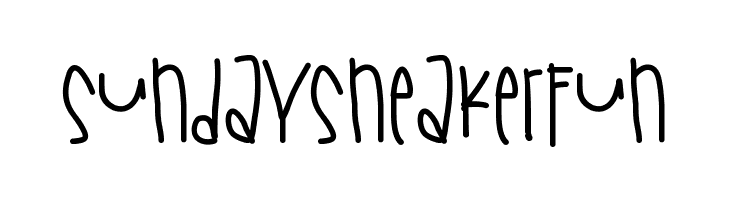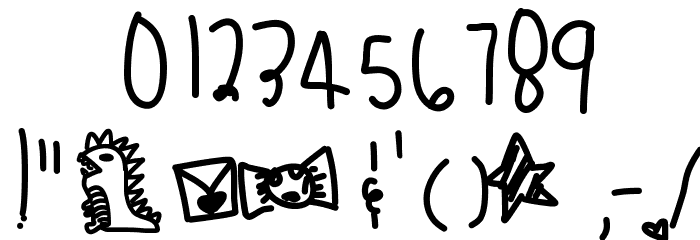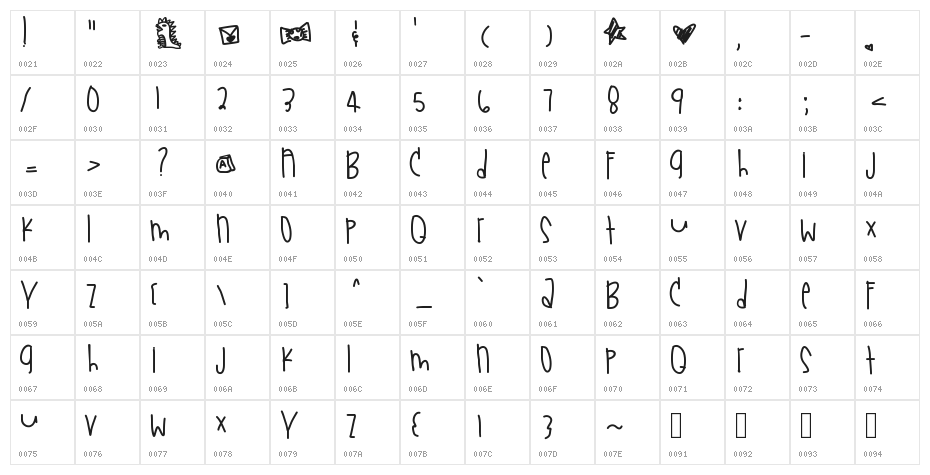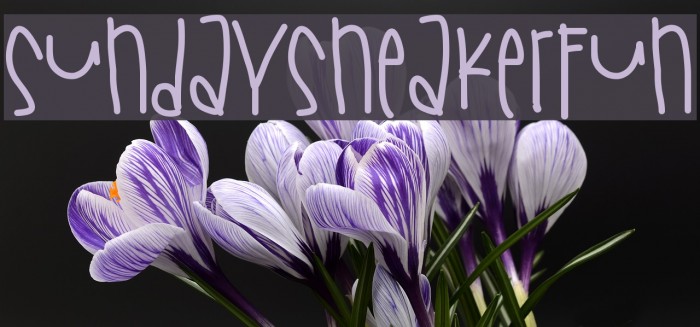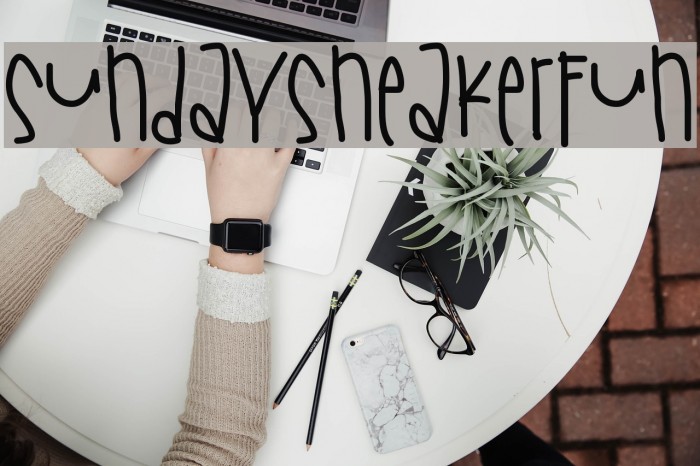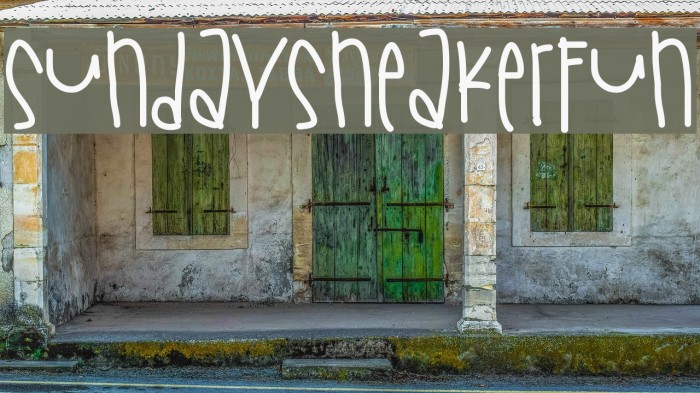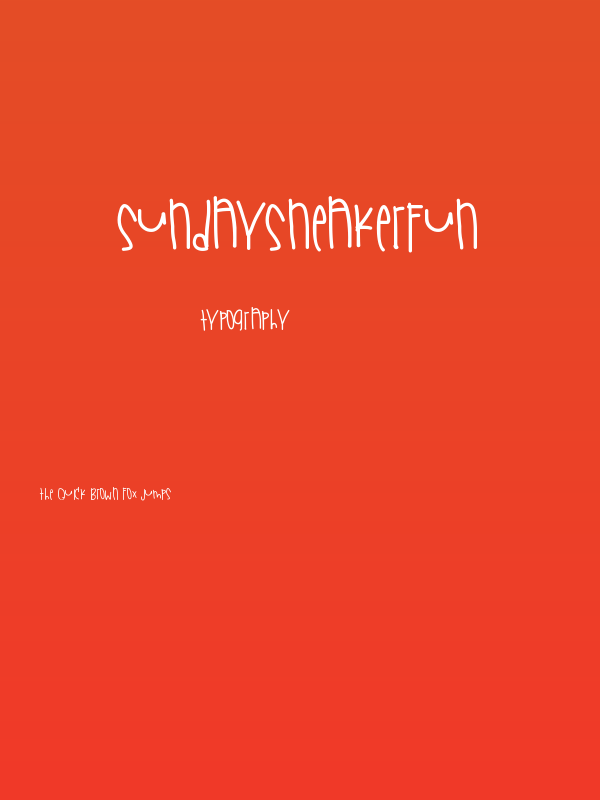
SundaySneakerFun Font
SundaySneakerFun Description
This playful and whimsical font features a handwritten style with a casual, informal appearance. The letters are tall and narrow, with a consistent stroke width that gives it a uniform look. The characters have a slightly irregular baseline, adding to the hand-drawn feel. The font includes both uppercase and lowercase letters, numbers, and a variety of special characters, each maintaining the same playful aesthetic. The overall design is approachable and friendly, making it suitable for projects that require a personal touch.
Overall StylePlayful
Use CaseHeadlines, Informal text, Creative projects
Proposed ProjectsIdeal for children's books, greeting cards, playful branding, and social media graphics.